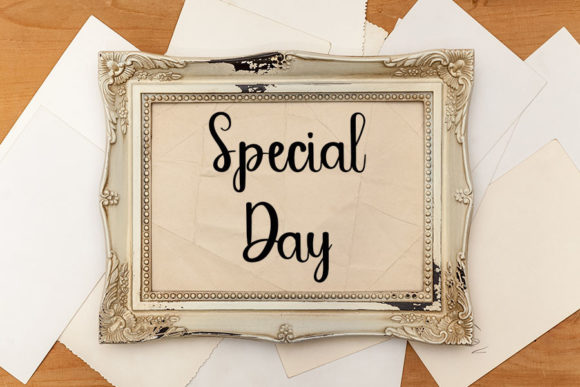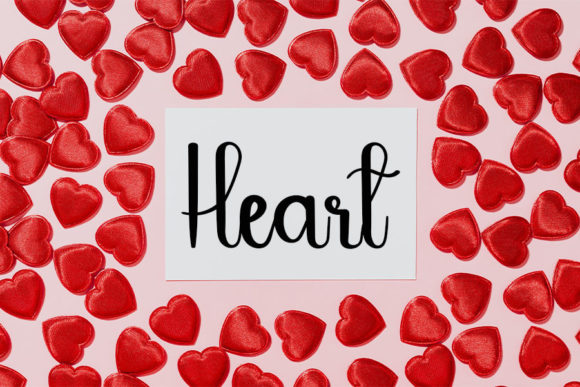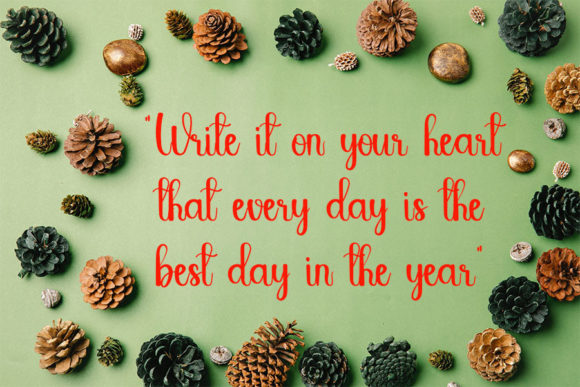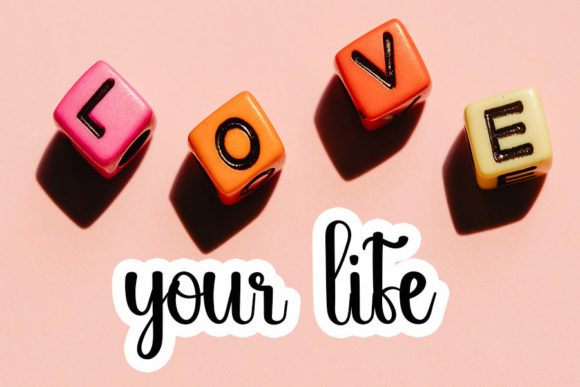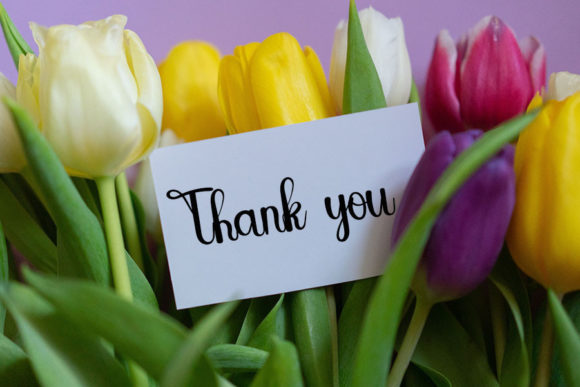
Introducing Angel Font: The Perfect Choice for Romantic and Delicate Designs
Are you a designer or crafter looking for a font that exudes elegance, romance, and whimsy? Look no further than Angel Font, a slim and delicate handwritten font that’s perfect for adding a touch of sophistication to your designs. In this article, we’ll dive into the features and benefits of Angel Font, and explore how you can use it to create stunning wedding invitations, cards, and other designs that require a personal and romantic touch.
What is Angel Font?
Angel Font is a beautiful, handwritten font that’s characterized by its slim and delicate strokes. The font has a dainty and joyful feel to it, making it perfect for designs that require a touch of romance and whimsy. Whether you’re creating wedding invitations, greeting cards, or other paper crafts, Angel Font is sure to add a level of sophistication and elegance to your designs.
Key Features of Angel Font
So, what makes Angel Font so special? Here are some of its key features:
- Slim and delicate strokes: Angel Font has a slender and refined appearance that’s perfect for creating elegant and sophisticated designs.
- Handwritten feel: The font has a warm, handwritten feel that’s perfect for adding a personal touch to your designs.
- Dainty and joyful: Angel Font has a playful and whimsical feel to it, making it perfect for designs that require a touch of romance and fun.
- Versatile: Angel Font can be used for a wide range of designs, from wedding invitations and cards to paper crafts and more.
Using Angel Font for Wedding Invitations and Cards
One of the most popular uses for Angel Font is creating wedding invitations and cards. The font’s slim and delicate strokes make it perfect for writing formal and elegant wedding invitations, while its handwritten feel adds a touch of warmth and personality. Here are some tips for using Angel Font for wedding invitations and cards:
- Pair with simple graphics: Angel Font looks best when paired with simple graphics and illustrations. Consider using minimalist floral patterns, watercolor designs, or simple ribbons to complement the font.
- Use for titles and headings: Angel Font is perfect for titles and headings, such as “Wedding Invitation” or “Save the Date”. Use it to add a touch of elegance and sophistication to your designs.
- Add a personal touch: Consider using Angel Font to add a personal touch to your wedding invitations and cards. You could use it to write the couple’s names, the wedding date, or a special message.
Tips for Using Angel Font in Your Designs
Here are some general tips for using Angel Font in your designs:
- Experiment with font sizes: Angel Font looks great in a variety of font sizes. Experiment with different sizes to find the one that works best for your design.
- Pair with other fonts: Angel Font can be paired with other fonts to create a unique and interesting look. Consider pairing it with a bold, sans-serif font for a striking contrast.
- Use for digital and print designs: Angel Font can be used for both digital and print designs. Use it to create stunning wedding invitations, cards, and paper crafts, or use it in your digital designs, such as social media graphics and blog posts.
Angel Font is a beautiful, handwritten font that’s perfect for adding a touch of romance and elegance to your designs. With its slim and delicate strokes, dainty and joyful feel, and versatile uses, it’s no wonder that Angel Font is a popular choice among designers and crafters. Whether you’re creating wedding invitations, cards, or other paper crafts, Angel Font is sure to add a level of sophistication and whimsy to your designs.